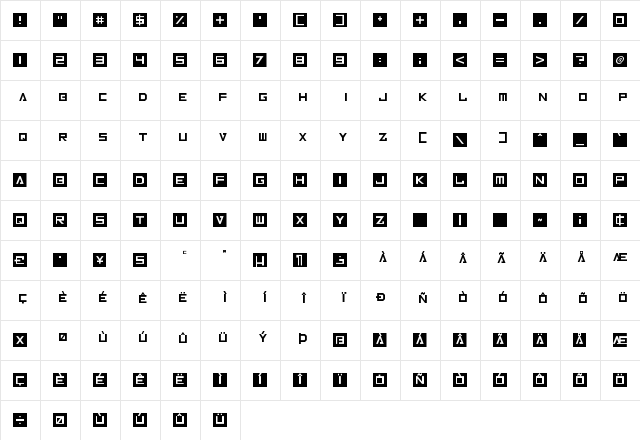
Inversionz Regular
| Designer | Darrell Flood |
Design Context for Inversionz Typeface
Inversionz takes a measured approach to typography — its balanced proportions and neutral character make it a reliable workhorse for both digital and print work.